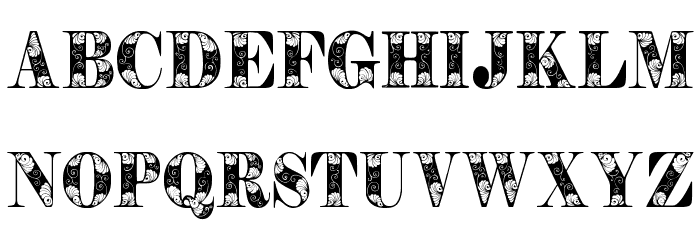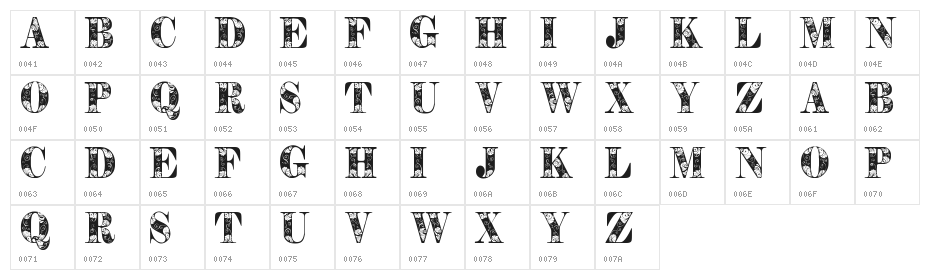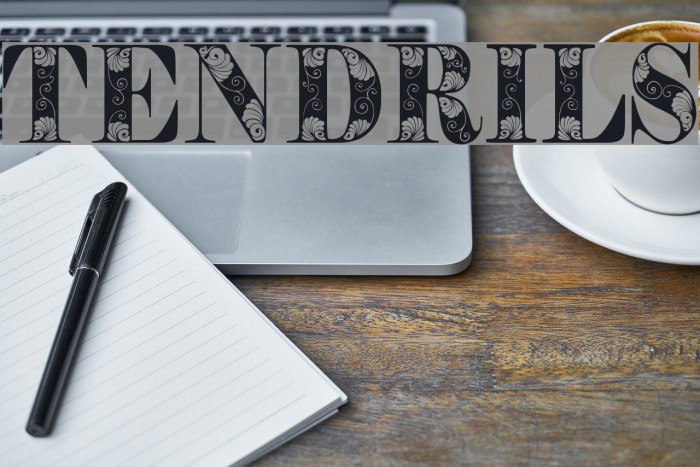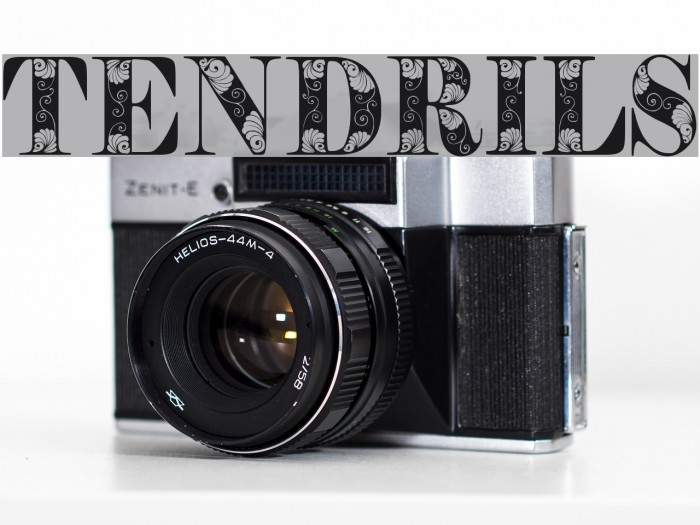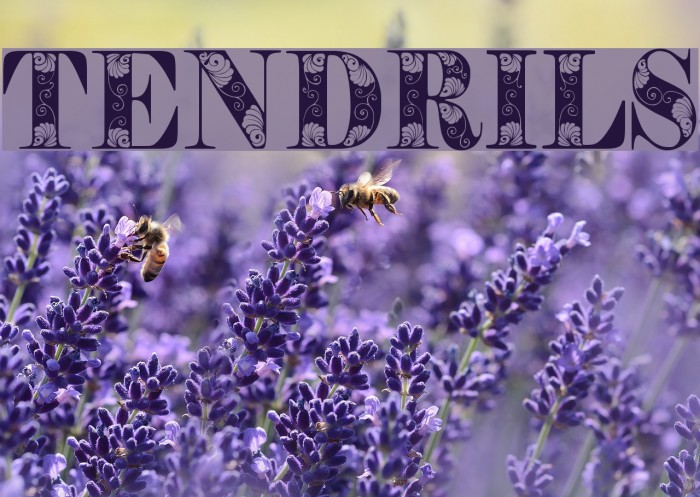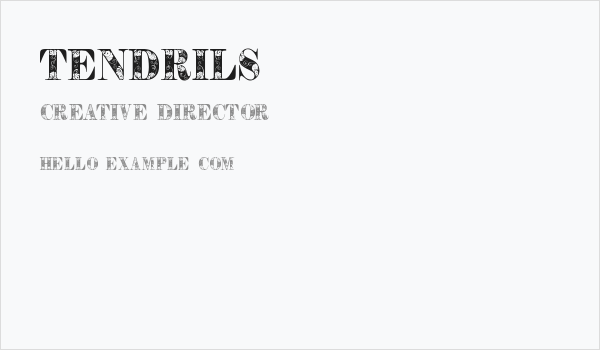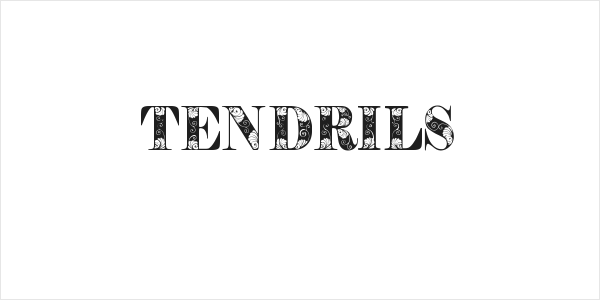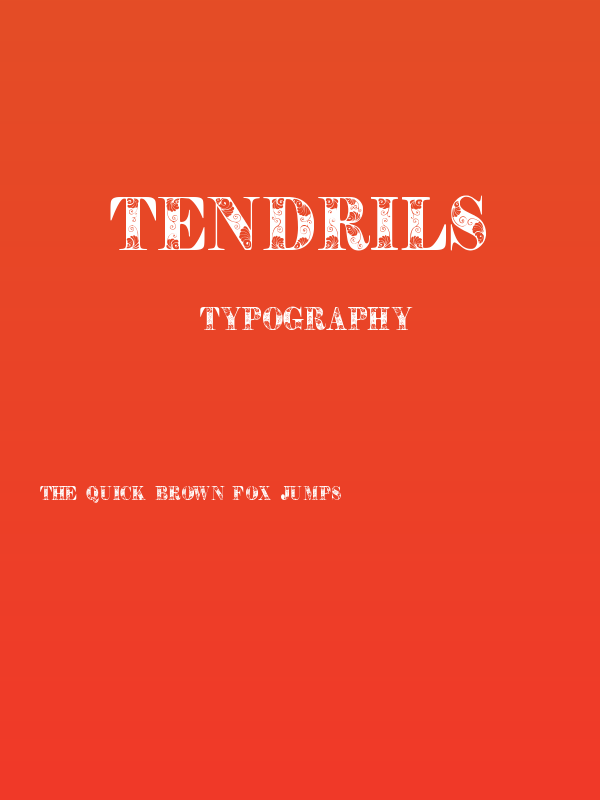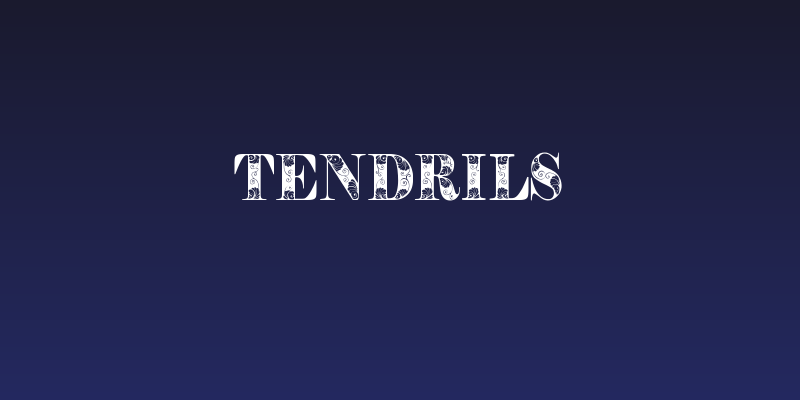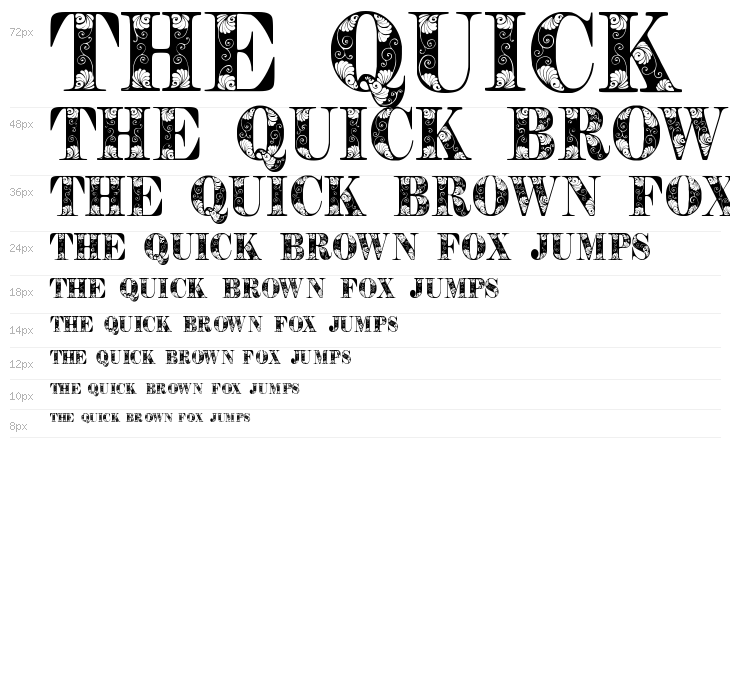
Tendrils Font
Tendrils Description
This font features an intricate design with decorative elements that resemble tendrils or vines winding through each letter. The uppercase letters are bold and striking, with a high level of detail that adds a unique, ornamental touch. The overall appearance is both elegant and artistic, making it suitable for projects that require a touch of sophistication and creativity. The letters maintain a consistent width and height, ensuring readability while showcasing the elaborate patterns within each character.
| Proposed Projects | Ideal for wedding invitations, luxury branding, artistic posters, and decorative headlines. |